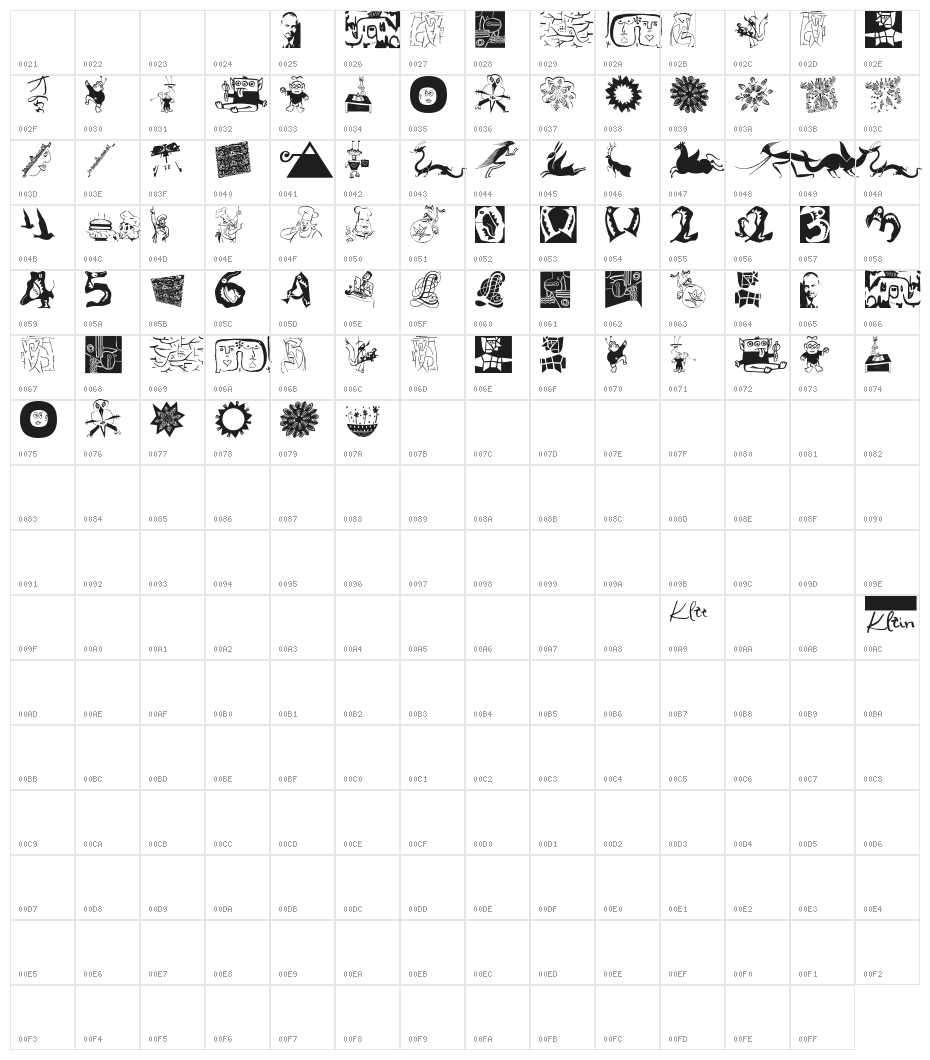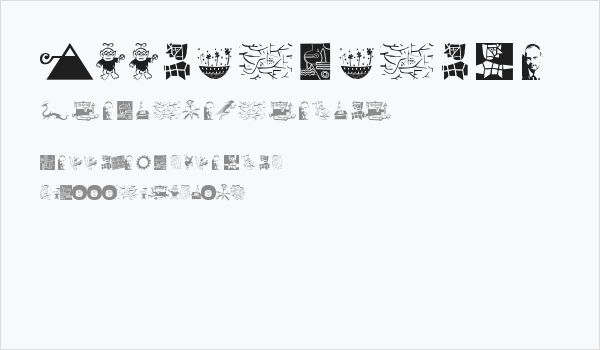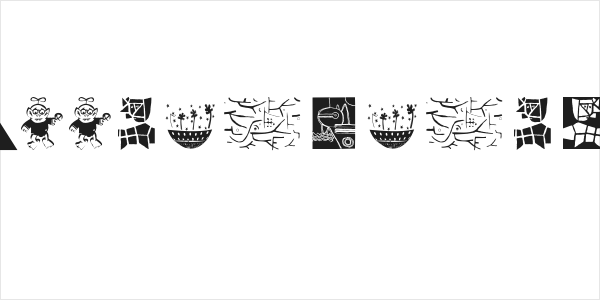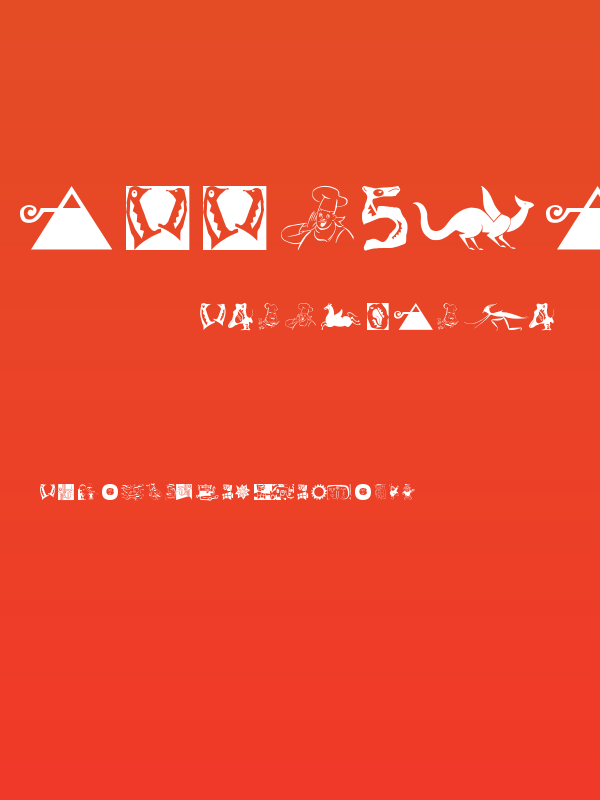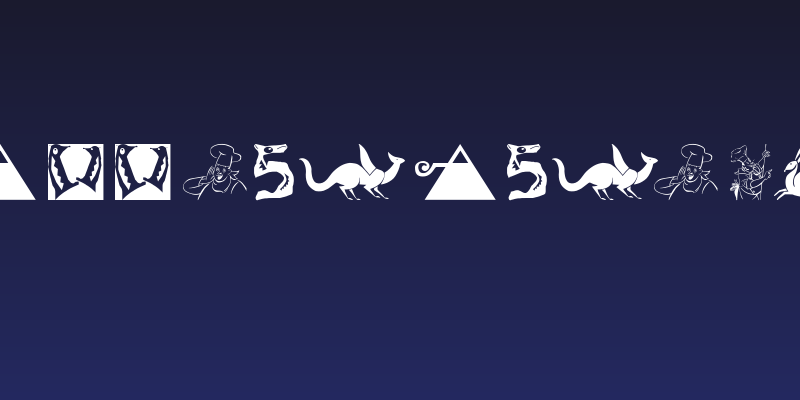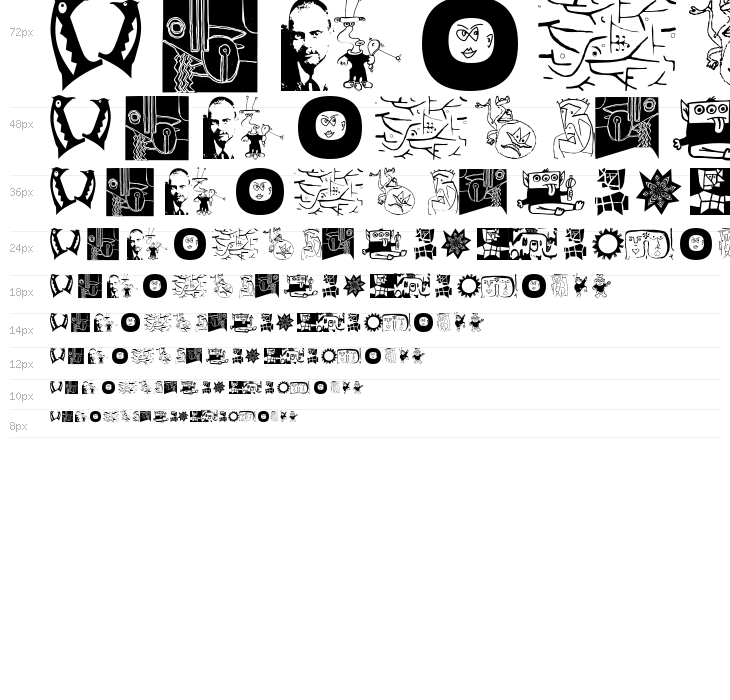
Assoziazione Font
This collection features a series of whimsical and artistic characters, each designed with a unique and playful style. The characters are not traditional letters or numbers but rather a series of illustrations and abstract shapes that convey a sense of creativity and fun. The designs include various animals, abstract figures, and imaginative creatures, each with intricate details and a distinct personality. The overall style is highly decorative, making it suitable for projects that require a touch of artistic flair and originality.
Use CaseArtistic projects, decorative elements, creative branding.
Proposed ProjectsIdeal for creative projects such as children's book illustrations, artistic posters, unique branding elements, and decorative design work.